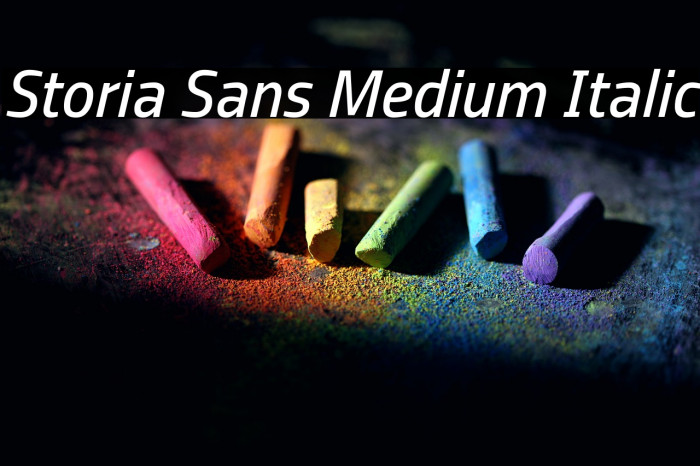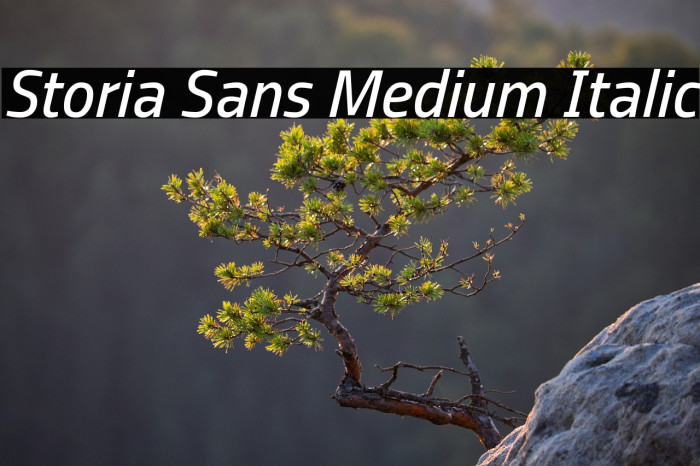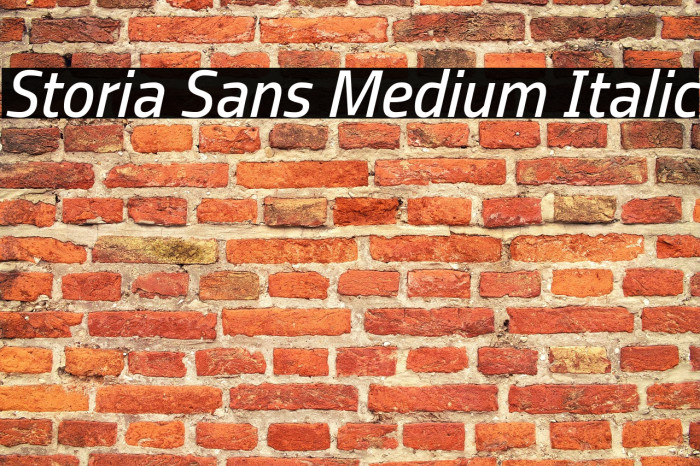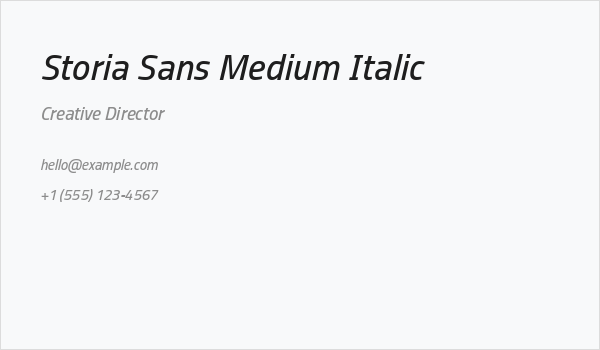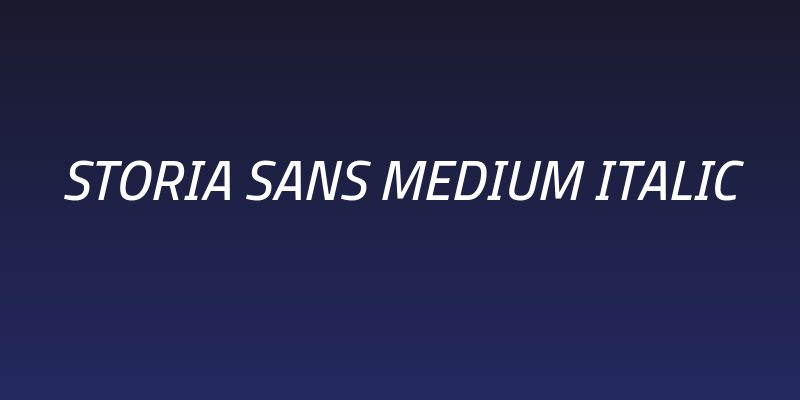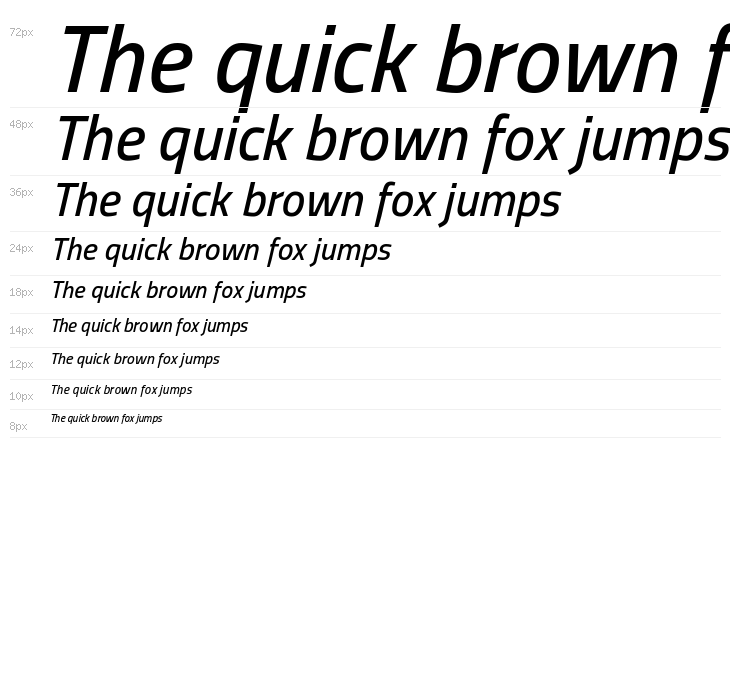
Storia Sans Medium Italic Font
Storia Sans Medium Italic Description
This font features a clean and modern sans-serif style with a medium weight and italic slant. The characters are well-proportioned, offering a harmonious balance between curves and straight lines. The uppercase letters are bold and assertive, while the lowercase letters maintain a consistent flow, enhancing readability. Numbers are clear and distinct, making them suitable for various applications. The special characters are designed to complement the overall aesthetic, ensuring versatility in usage. The font's smooth curves and precise angles give it a contemporary feel, making it ideal for digital and print media.
Proposed ProjectsIdeal for branding, advertising, web design, and editorial projects where a modern and clean look is desired.